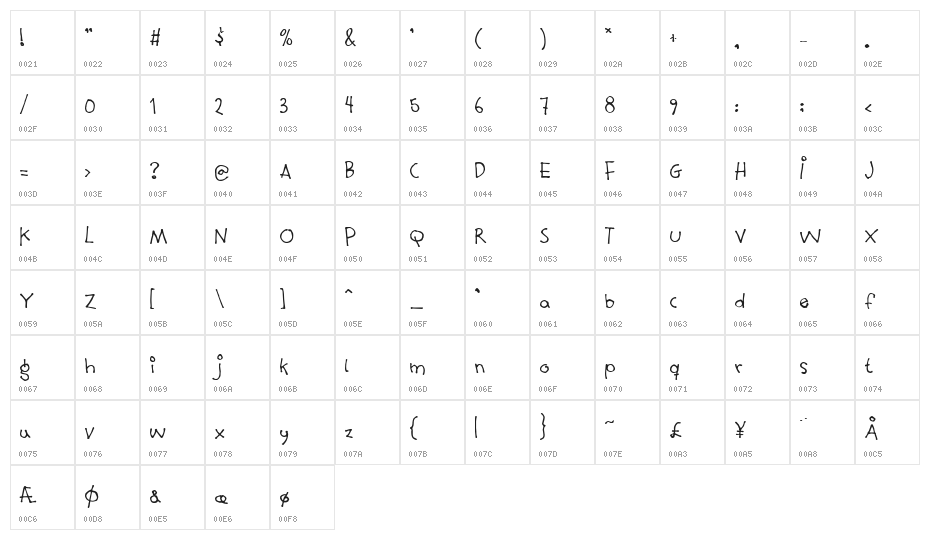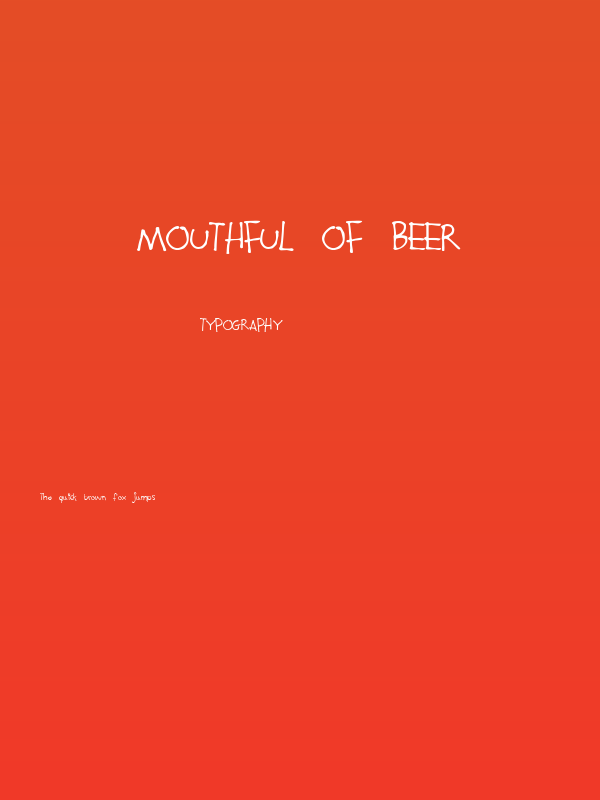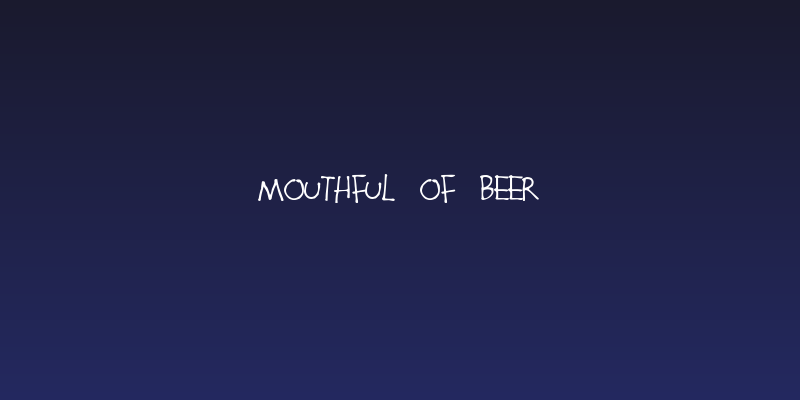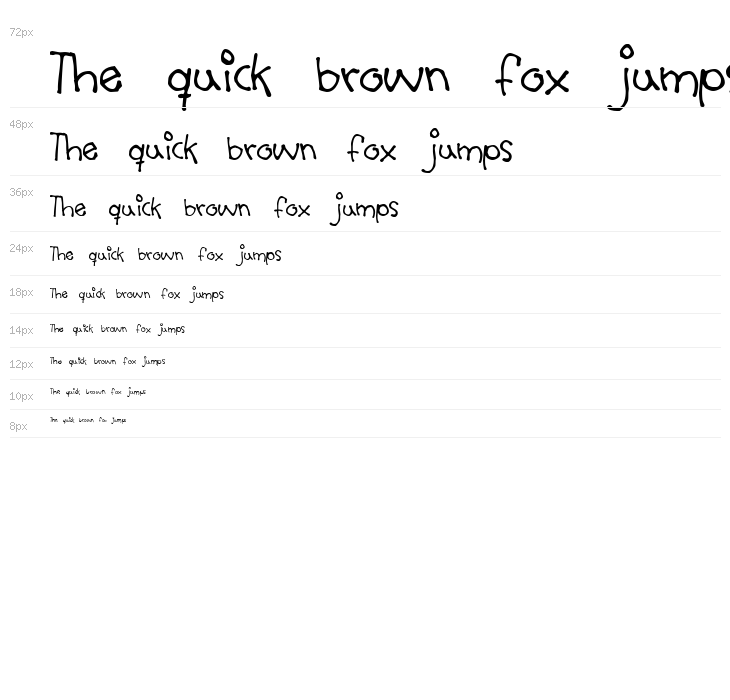
Mouthful of beer Font
Mouthful of beer Description
This font features a playful and whimsical design, characterized by its irregular and hand-drawn appearance. The letters have a casual, almost childlike quality, with uneven strokes and quirky details, such as the tilted 'o' and the varied heights of the characters. The numbers and special characters maintain this informal style, adding to the overall charm. The font's unique personality makes it stand out, offering a sense of fun and creativity. Its organic and imperfect lines suggest a handwritten feel, ideal for projects that aim to convey a personal touch or a sense of spontaneity.
| Proposed Projects | Ideal for children's books, greeting cards, playful branding, and creative posters. |